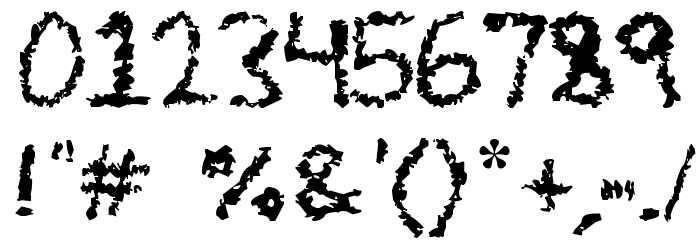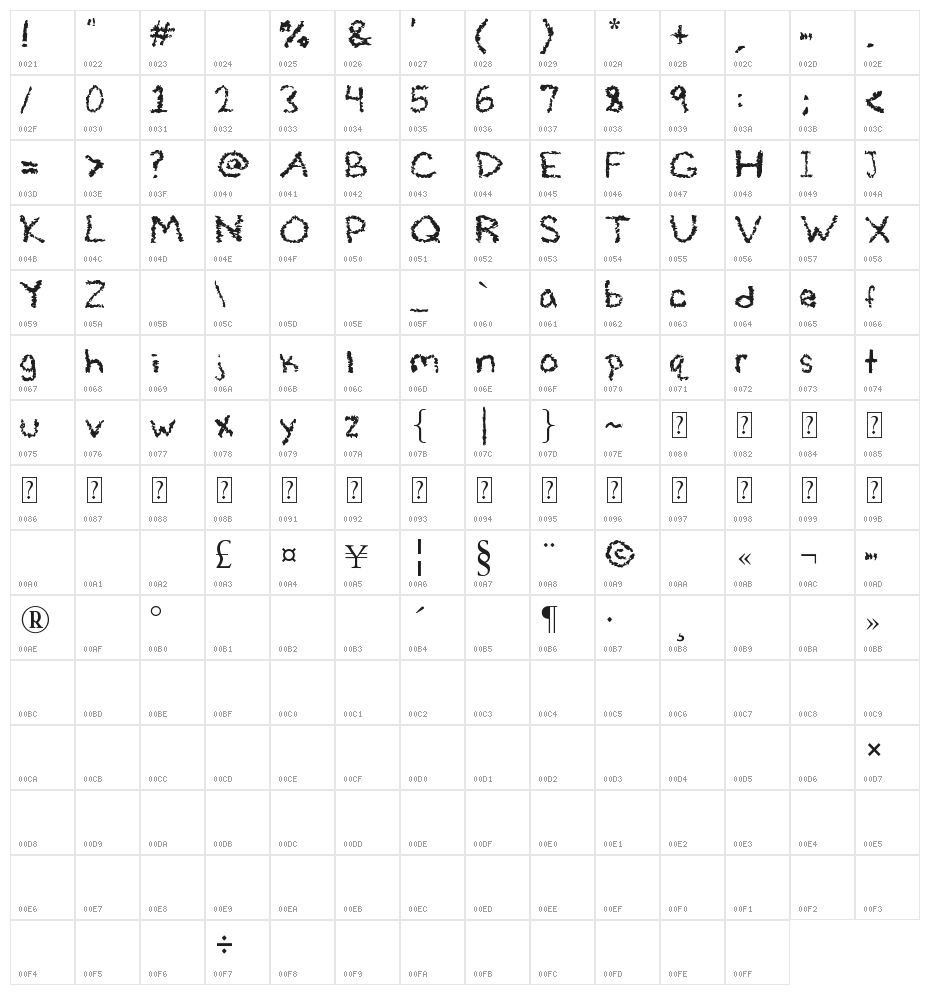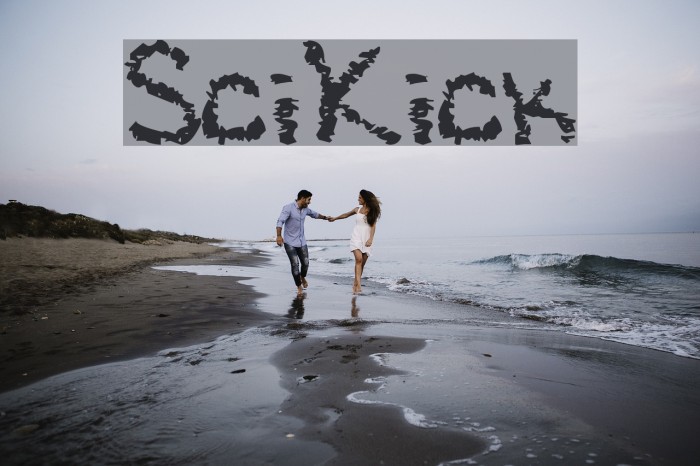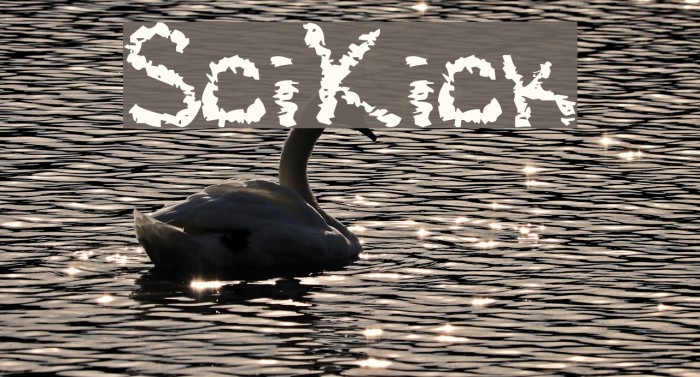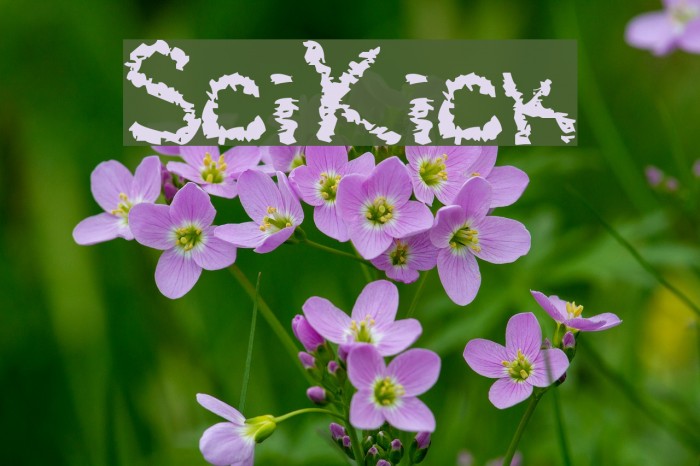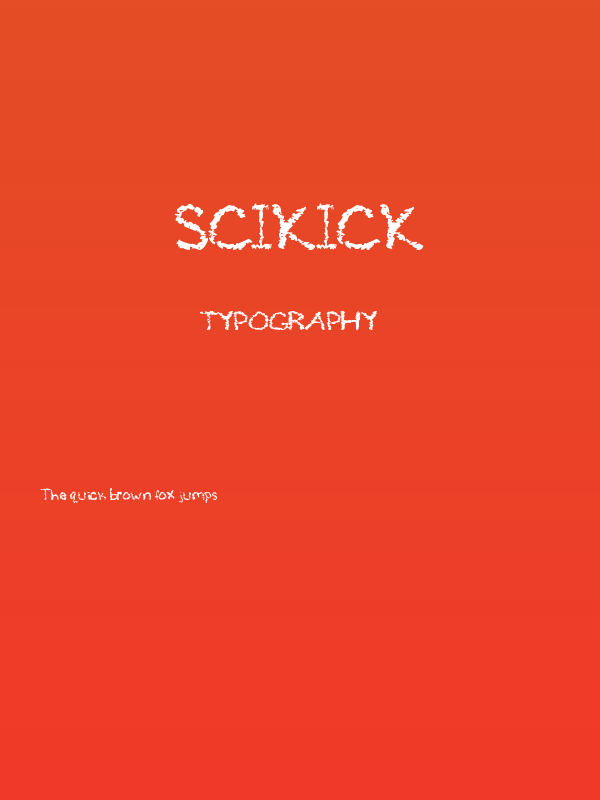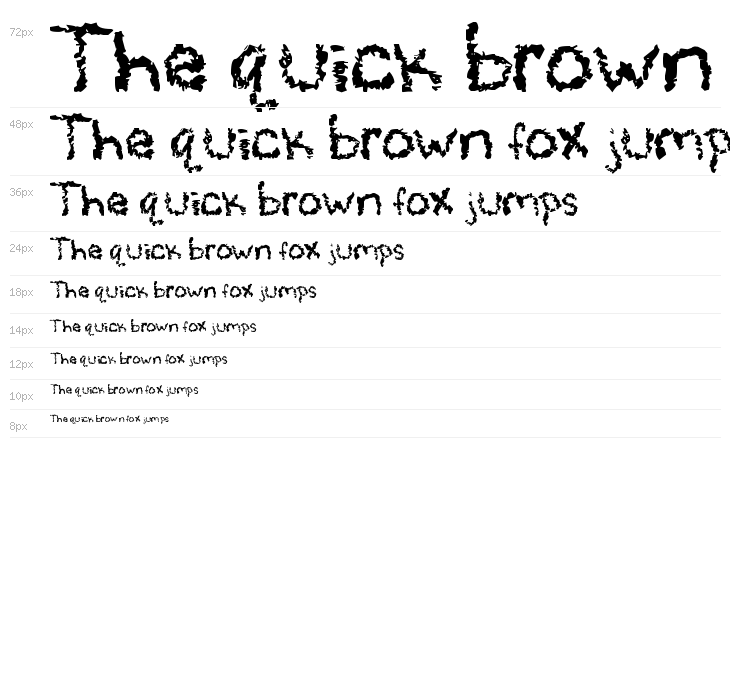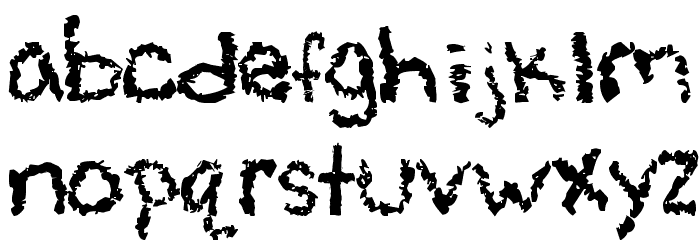
SciKick Font
SciKick Description
This font features a highly decorative and chaotic style, with each character appearing as if it is composed of scattered, jagged fragments. The irregular edges and dynamic shapes give it a unique, edgy appearance that stands out. The uppercase and lowercase letters maintain a consistent level of distortion, creating a cohesive yet unpredictable look. Numbers and special characters follow the same design principles, ensuring uniformity across all glyphs. This font is ideal for projects that require a bold, unconventional aesthetic, making it perfect for eye-catching headlines or artistic designs.
| Use Case | Headlines, Artistic designs, Posters |
| Proposed Projects | Ideal for album covers, posters, graffiti art, and edgy branding projects. |